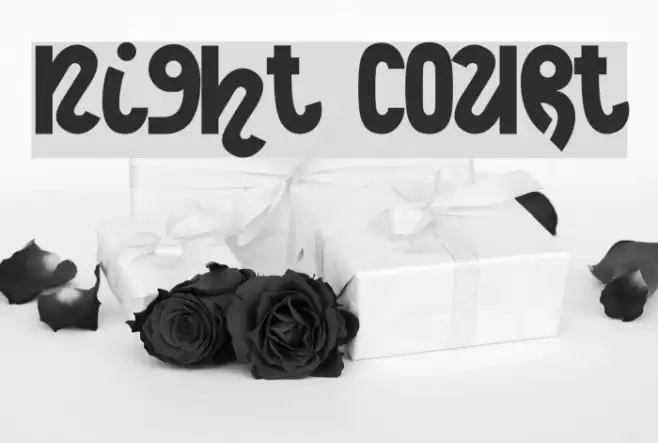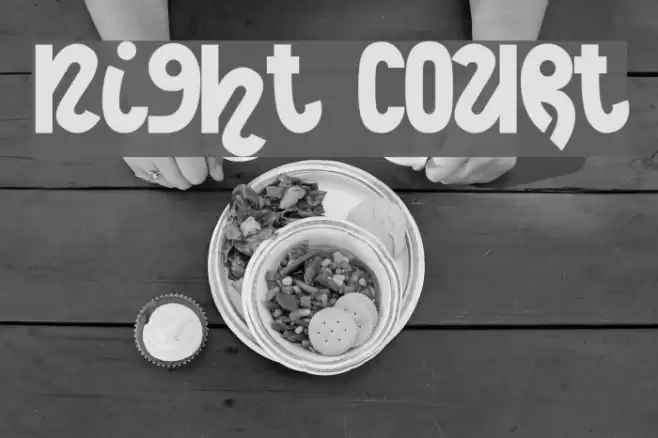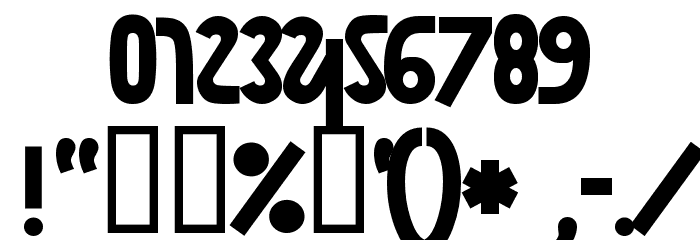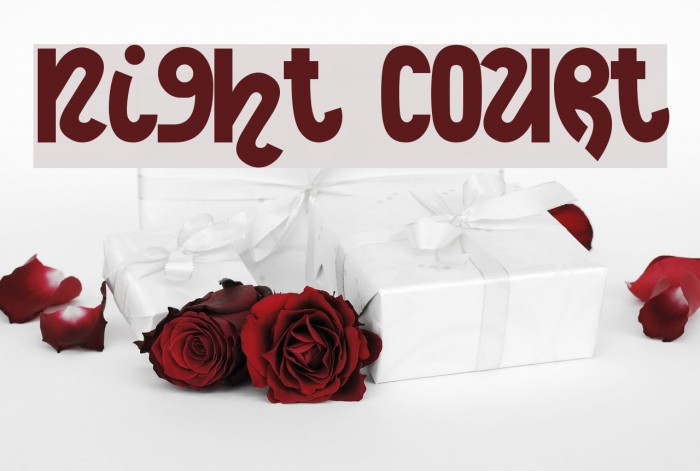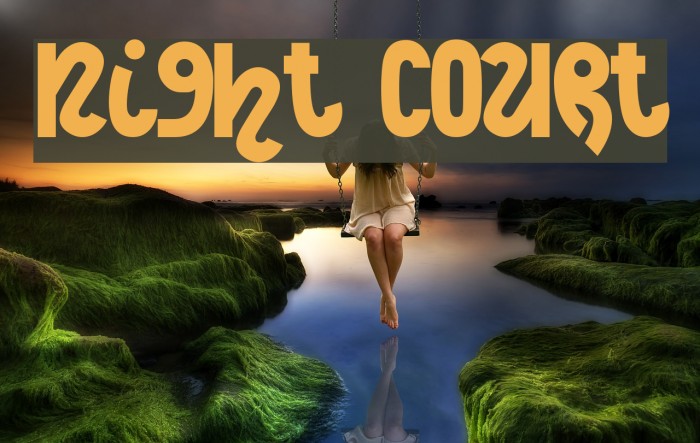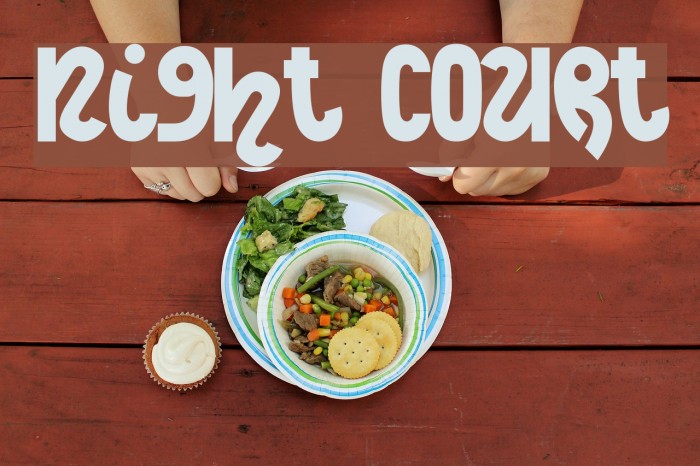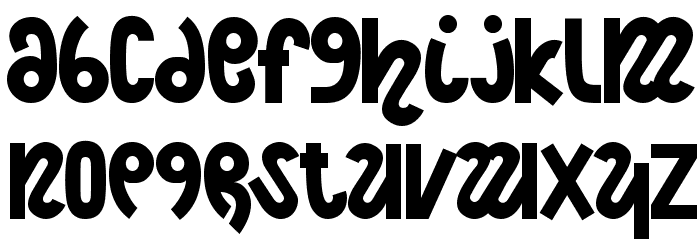
Night Court Font
Night Court Description
This font features a bold and dynamic style with a unique, flowing script that combines elements of both cursive and decorative design. The characters are thick and rounded, with a playful yet sophisticated appearance. The uppercase and lowercase letters maintain a consistent style, with some letters exhibiting a slight slant, adding to the font's lively character. The numerals are bold and match the overall aesthetic, ensuring readability while maintaining the font's artistic flair. Special characters are creatively designed, complementing the overall look.
A bold, decorative script font with a playful and sophisticated style from Quirky fonts.